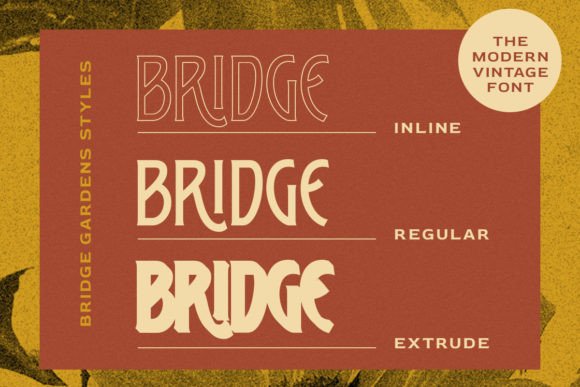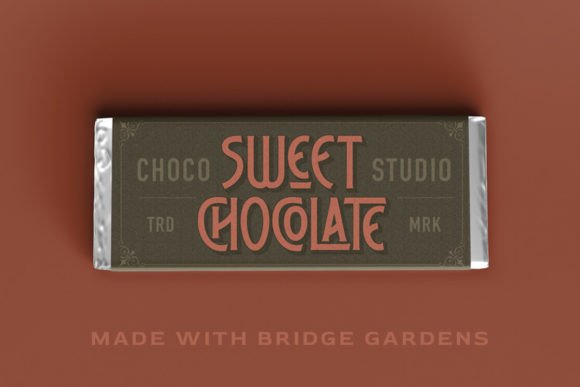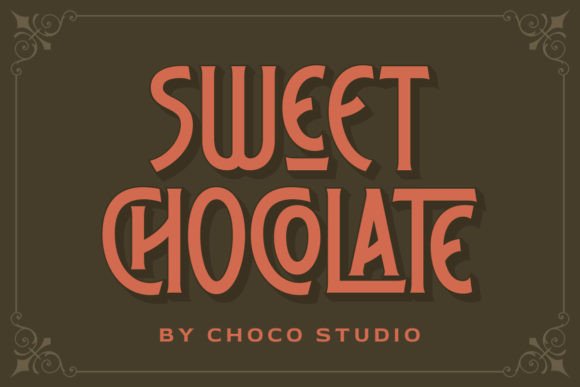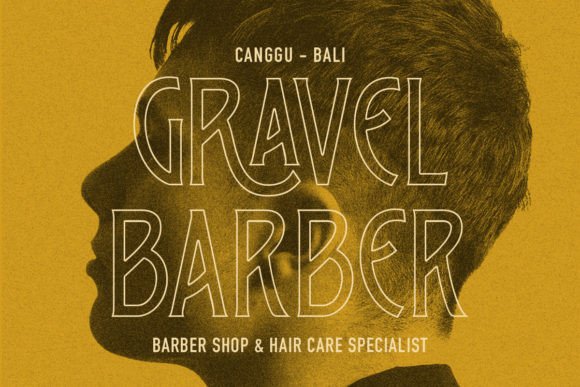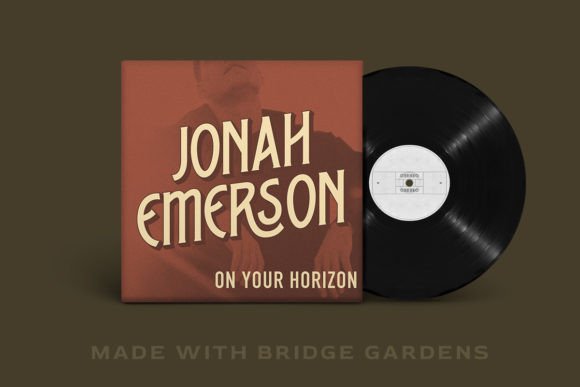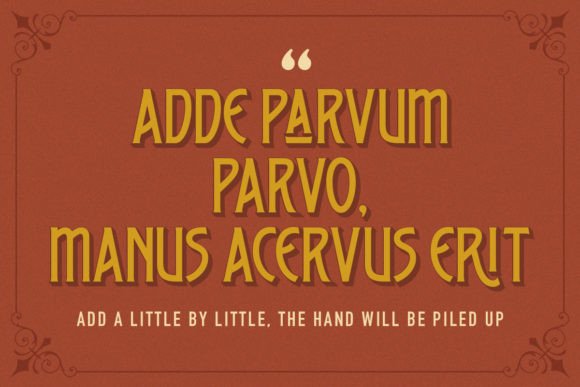
Discover the Elegance of Bridge Gardens Font: A Perfect Blend of Vintage and Modern Sophistication
In the world of typography, fonts play a crucial role in conveying the tone and personality of a brand or design. For designers and crafters looking for a font that exudes sophistication, elegance, and a touch of modernism, Bridge Gardens Font is an excellent choice. This display font is specifically designed to make a statement with its clean and vintage looks, making it ideal for headlines, logos, and other creative applications.
The Unique Characteristics of Bridge Gardens Font
Bridge Gardens Font stands out from other fonts due to its unique blend of vintage and modern elements. The font’s clean lines and classic structure give it a timeless appeal, while its modern twists and refined details make it look fresh and contemporary. This combination makes Bridge Gardens Font versatile and suitable for a wide range of design projects, from luxury branding to editorial design.
Why Choose Bridge Gardens Font?
There are several reasons why Bridge Gardens Font has become a popular choice among designers and crafters:
- Sophistication and Elegance: The font’s classic and refined structure conveys a sense of luxury and sophistication, making it perfect for high-end brands and publications.
- Modernism and Originality: Bridge Gardens Font’s modern twists and unique details give it a distinctive look that sets it apart from more traditional fonts.
- Versatility: The font’s clean and simple structure makes it easy to read and versatile for use in various design applications, from headlines and logos to body text.
- High-End Appeal: Bridge Gardens Font is designed to evoke a sense of exclusivity and high-end quality, making it a popular choice for luxury brands, fashion magazines, and upscale publications.
Applications of Bridge Gardens Font
Bridge Gardens Font’s versatility and elegance make it suitable for a wide range of design applications, including:
- Logo Design: The font’s unique and refined structure makes it perfect for creating memorable and sophisticated logos.
- Headlines and Titles: Bridge Gardens Font’s clean and classic lines make it ideal for use in headlines and titles, adding a touch of elegance and sophistication to any design.
- Branding and Identity: The font’s high-end appeal and versatility make it a popular choice for luxury brands and publications looking to create a distinctive and memorable brand identity.
- Editorial Design: Bridge Gardens Font’s readability and classic structure make it suitable for use in editorial design, including magazines, newspapers, and books.
Tips for Using Bridge Gardens Font
To get the most out of Bridge Gardens Font, here are some tips for using it effectively in your designs:
- Use it Sparingly: Due to its elegant and sophisticated nature, Bridge Gardens Font is best used sparingly to make a statement.
- Experiment with Sizes: The font’s clean structure and classic lines make it versatile for use in various sizes, from large headlines to smaller body text.
- Pair it with Other Fonts: Bridge Gardens Font pairs well with other fonts, especially those with a modern and clean structure, to create a visually appealing and harmonious design.
Bridge Gardens Font is a versatile and elegant display font that offers a unique blend of vintage and modern sophistication. Its clean lines, refined details, and high-end appeal make it a popular choice for designers and crafters looking to add a touch of luxury and exclusivity to their designs. Whether you’re working on a logo, headline, or editorial design, Bridge Gardens Font is an excellent choice for creating a memorable and visually appealing design.